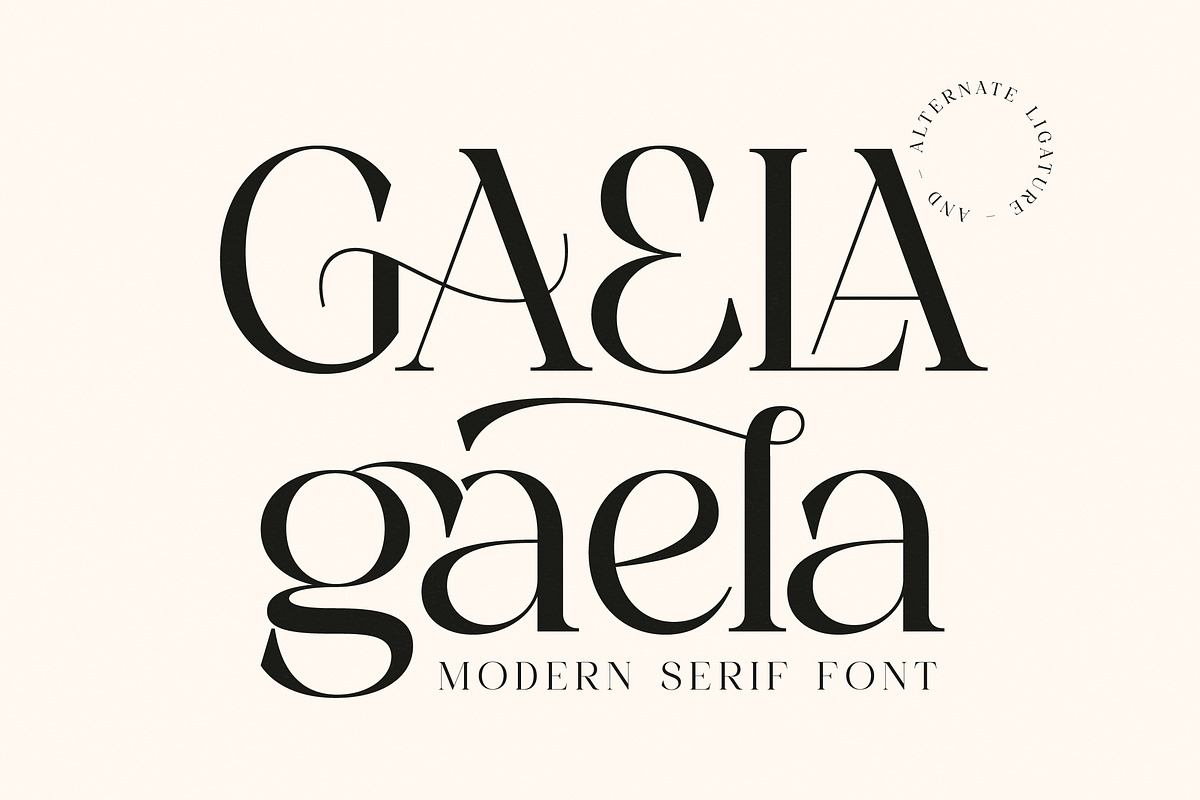
Gaela Modern Serif Font
Introducing Gaela, a modern and classic serif typeface designed by Storytype Studio. Gaela combines unique styling with a modern look, making it ideal for various design applications.
Features:
Styles Included: Regular and Italic
Character Set: Uppercase and lowercase letters, numerals, punctuation, and multilingual support
Usage Recommendations:
Gaela is perfect for:
Elegant and luxury logos
Book or movie title designs
Fashion branding
Magazine layouts
Clothing designs
Lettering and quotes